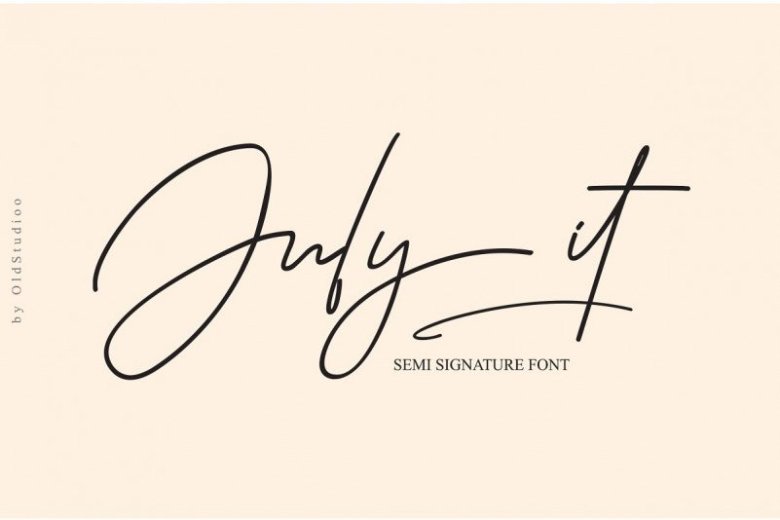
July it Signature Font
July it Font – Script signature an elegant new font! This is signature font feels like Gel Pen scratches so this is perfect choice for your signature, fashion. July it designed and shared by Analogous. July it Signature Font is a signature font that you can use to make a design. This is perfect for BRANDING,funny logos with this font and poster headline, magazines, book titles, business cards, beautiful fashion designs, advertisements, product designs, wedding invitation, signature or handwritten quote.